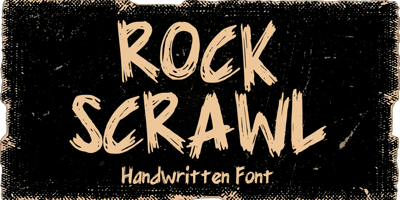
Rock Scrawl
Rock Scrawl font
Rock Scrawl Font Family was designed by Gabriel Valentinus and published by Mvmet. Rock Scrawl contains 1 styles and family package options. Rock Scrawl is a cool grunge and rock band display font. Rock Scrawl is great for creating cool designs that scream for attention: it’s ideal for movie posters, music posters, single covers, t-shirt designs, stickers, clothing, merchandise, and more. Fall in love with its incredibly cool style, and use it to create lovely designs!